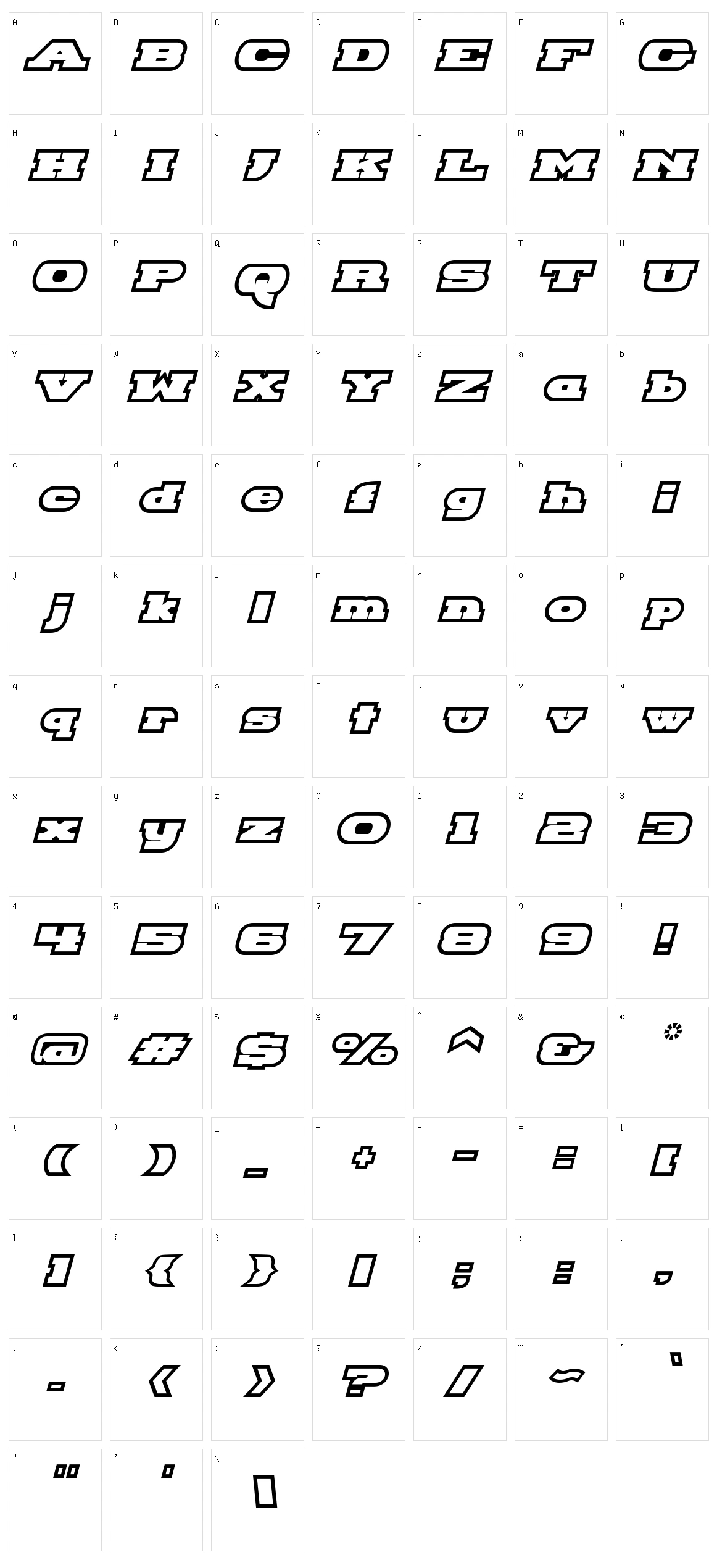
Hackney Block
Category: Serif
Hey Everybody meet Hackney Block. There are 4 members in this font family. It's a broad, clean, and consistent typeface that could work in any number of uses. Full punctuation, limited kerning,
and Eastern Europe characters are present. There are over 630 glyphs, most which are available in this initial 1.0 release. Spacing is naturally tight but this can be tweaked if needed with